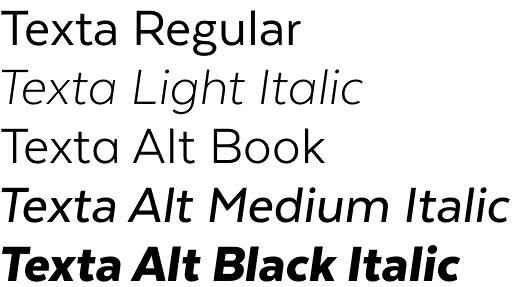
Texta font
Texta font is a evolutionary result from studying the existing humanist models from Edward Johnston to Adrian Frutiger including the Gothic Alphabet made by sign painters. Texta is a multiweight family ranging from Thin to Black in 8 separate fonts giving you enough options for different contrast of your type. Each weight has corresponding true italics but what is really surprising here is the decision to develop each upright and italic weight into relevant separate font with alternate characters. This makes the total of 32 fonts inside the family and even if you don’t use Open Type compatible software, if you have the two variations of one weight, you will be able to use both standard and alternate symbols simply by changing from one font to another.
Contemporary, transparent and rational, Texta is very useful in any aspect of editorial design and it will easily face the challenges of every print process. Excellent for text and display font, Texta is a top solution if you want to use it for eBooks, web sites, apps, etc. Play with contrast and sizes, pick from alternates and italics, use nice colors and you’ll discover how playful a Modern Sans could be.